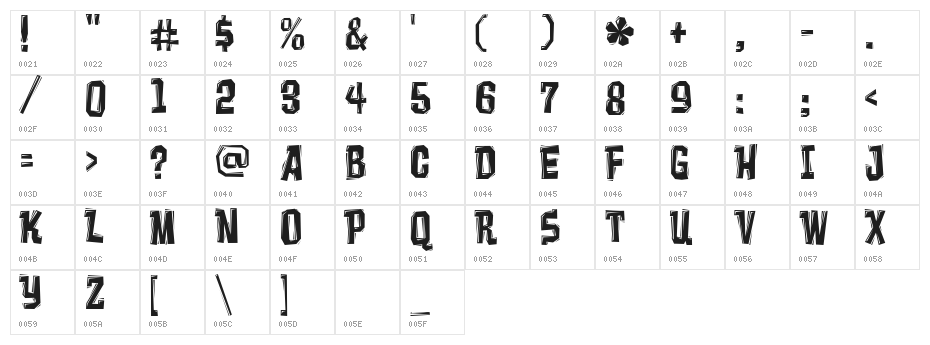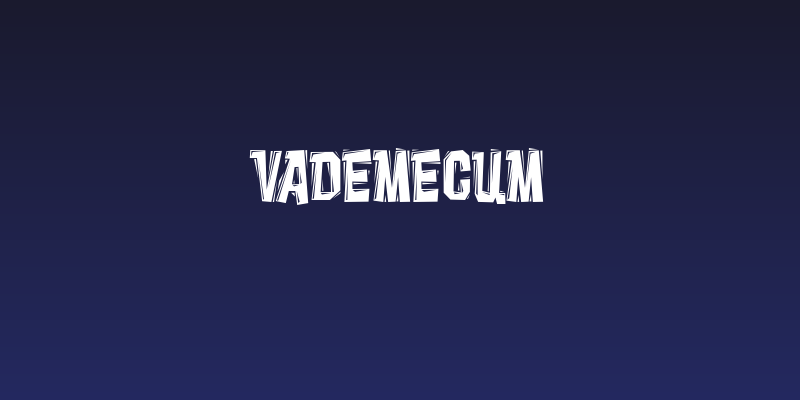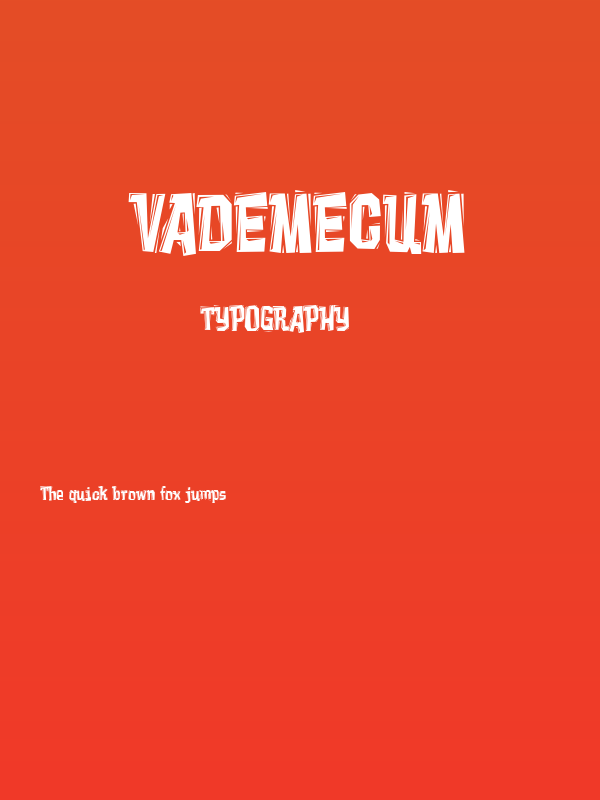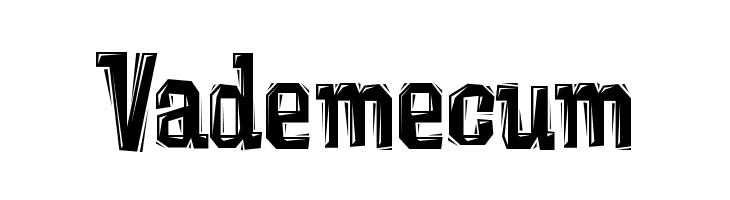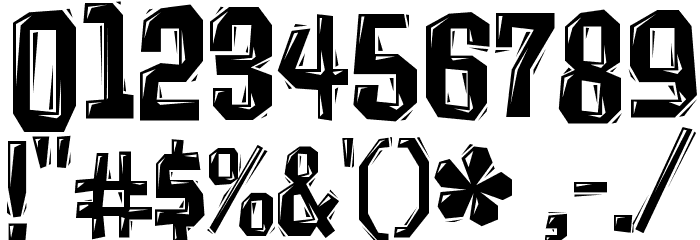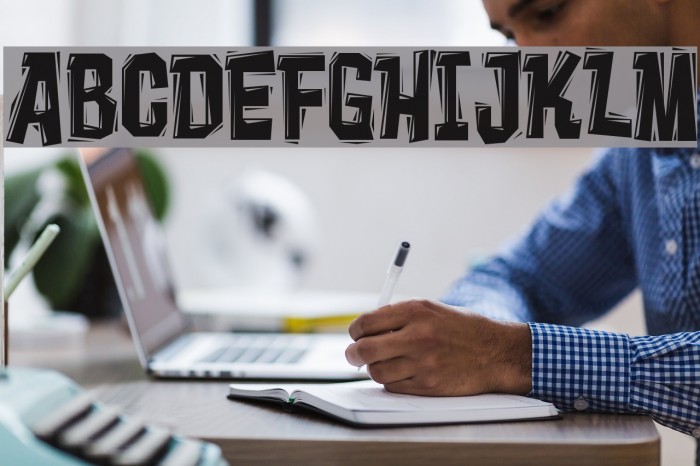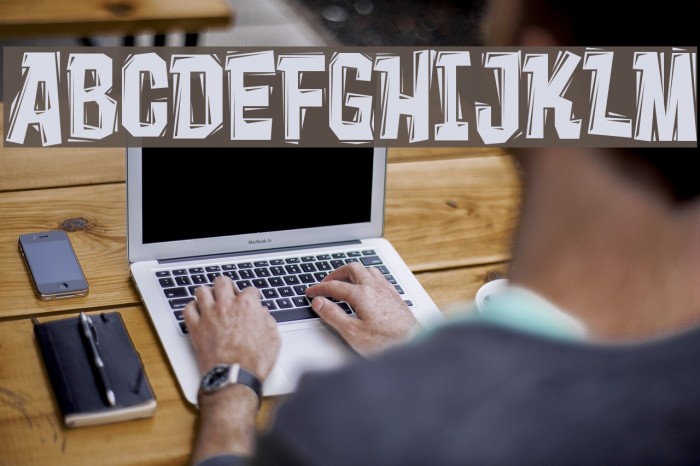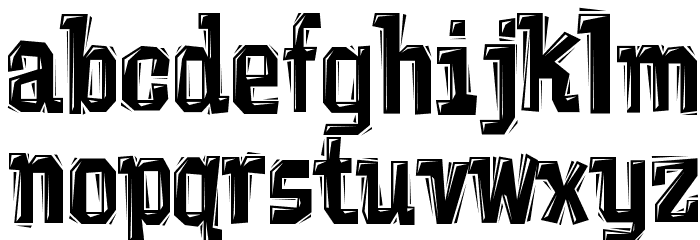
Vademecum Font
Vademecum Description
This font features a bold and dynamic design with a three-dimensional effect, giving it a striking and impactful appearance. The characters are constructed with sharp, angular lines and a shadow-like effect that creates depth. The uppercase and lowercase letters maintain a consistent style, with a strong geometric influence. The numerals and special characters follow the same bold and edgy design, making the font suitable for attention-grabbing projects. Its unique style is both modern and slightly retro, making it versatile for various creative applications.
| Proposed Projects | Ideal for posters, logos, video game graphics, and any project requiring a bold, impactful typeface. |